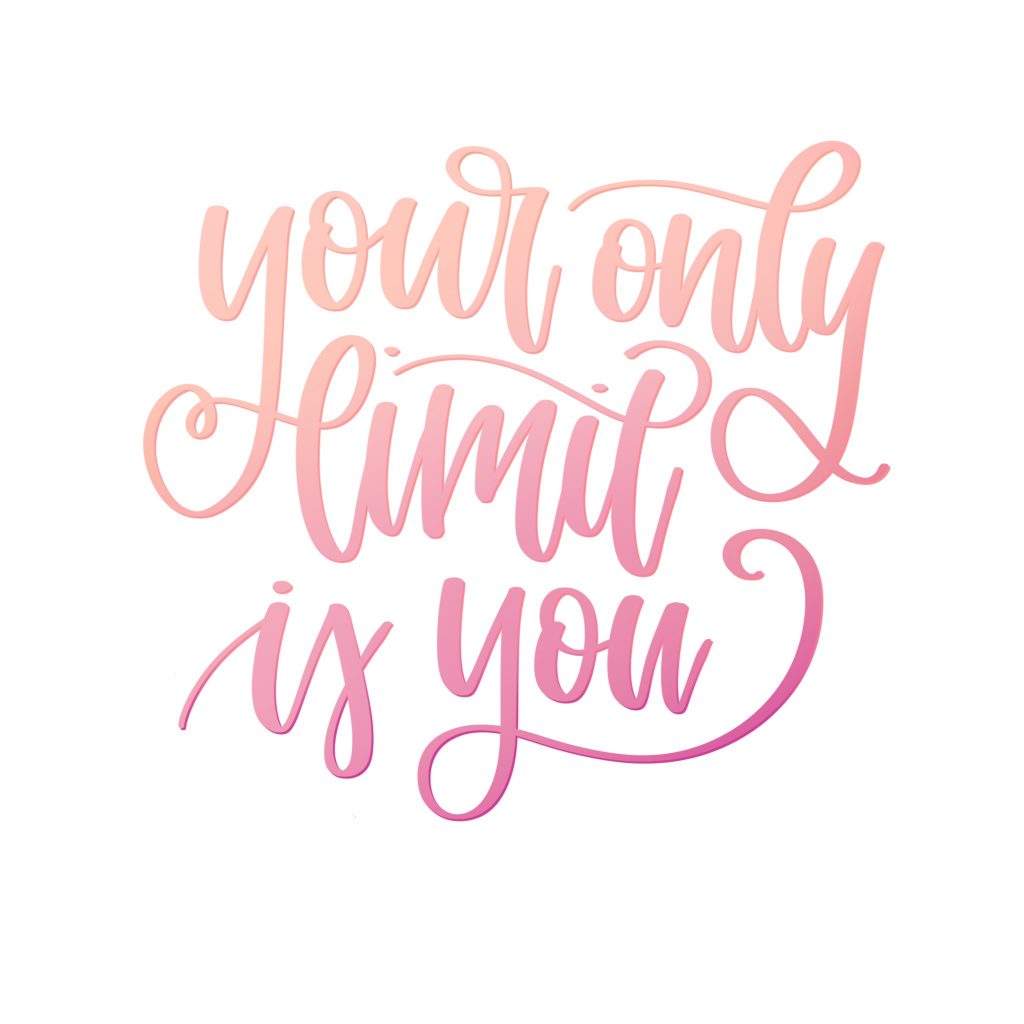
Become an Ace at iPad Lettering
If you have an interest in hand lettering and you own an iPad or tablet, there's a good chance at some point you will have tried lettering on your device. You may have written the idea off quite quickly too if you tried to letter with your finger as this can be a bit awkward to do. In the past there also weren't many places to learn how to letter digitally on your iPad or tablet.
Recently though within the lettering world iPad and tablet lettering has gained a lot more interest, and this is most likely due to the release of the iPad Pro and Apple Pencil towards the end of last year. There have been and are other tools available for drawing and writing on an iPad or tablet, but the Apple Pencil is designed in a way that works really well with hand lettering. The Apple Pencil has an incredibly sensitive pressure tip so it feels pretty similar to working with a traditional pencil or pen, and it is shaped like one too so there is no unfamiliarity. The Apple Pencil also senses when you're tilting it, so you can achieve clear definition between thick and thin lines, perfect for lettering! It is important to note that the Apple Pencil is only compatible with the iPad Pro due to the technology involved.
Professional lettering artists such as Ryan Hamrick, Dominique Falla (Typism Founder), Ruth Rowland and Ian Barnard have all been experimenting more recently with iPad lettering in some form or another, and there are many more artists that have been doing the same.
Where to Learn
If you want to become an ace at iPad lettering I highly recommend you visit Karin Newport's iPad Lettering website. Karin has created an excellent resource for beginners to learn iPad lettering through the use of digital guides, free tutorials and free brushes. The website isn't just for beginners either as it hosts a shop stocked with helpful tools for artists to return to time and time again.
Karin's free tutorials are clear, and easy to follow along with. They are usually between five and ten minutes long, and get straight into teaching you something useful, be it how to set up Procreate on your iPad or how to practice lettering on your iPad. I've shared one of my favourite tutorials by Karin just below so you can see how easy to follow they really are!
Lettering on an iPad is quite different to lettering on paper, and can take a bit of getting used to, it is a skill you will need to develop. Karin provides you with the basic skills you will need to learn, so as long as you put the practice in you will be well on your way to becoming truly skilled at iPad lettering. The previous image and the following image are both examples of Karin's iPad lettering. Her work gives you a good insight into the beautiful type of lettering that you can create, you can also view more of Karin's delightful work on Instagram.
The guides Karin offers in her shop on the iPad Lettering website are well designed. It's really easy to choose what letter you want to work on and practice, or you can easily hide the letters altogether and just work with plain guides if you want to. The guides are intended specifically for the Procreate App, so probably won't work with other software.
What to Use
Karin works primarily with the amazing Procreate App mentioned above, which you may have already heard of or come across.
I worked within the technology industry for quite a few years, and I remember the launch of the Procreate App. It was an amazing piece of software that really helped to set a high standard for design based Apps, and still continues to do so. I was an early adopter of the Procreate App as I enjoy creating digital portraits from time to time, and I was blown away by the potential the App offered users for creating art. I never foresaw how helpful it would end up being for hand lettering, as at the time I was unfamiliar with the art.
The good news is that you don't need an iPad Pro to use the Procreate App, it works on any Apple iPad capable of running iOS 9.3 or later. So as long as you have an iPad you can get started exploring Procreate right away. At present in the US the Procreate App will only set you back $5.99, and in the UK it's £4.49 to buy. Unlike a lot of other design based software there's no monthly subscription, there's just a one off payment which makes the App even more great as it's so affordable.
As mentioned above Procreate works on any iPad that is able to run iOS 9.3 or later, but if you want to get the full experience of using the Apple Pencil you'll need both the Pencil and the iPad Pro. If you feel like treating yourself or finding out a bit more about the iPad Pro and Pencil I've shared some links below, so you can find them quickly and easily on Amazon.
Alternatives to the iPad Pro and Apple Pencil
I know that not everyone is a part of the Apple ecosystem, so the following are a couple of alternatives to using the iPad Pro and Apple Pencil if you'd like to give this type of lettering a go. Lettering artist and illustrator Shauna Lynn Panczyszyn makes some really fun and creative lettering with a Microsoft Surface Pro 4 tablet, and Adobe Creative Cloud which requires a monthly subscription. Adonit have created a stylus called the Pixel which isn't quite the same as an Apple Pencil but does a great job still at offering precision. The Pixel is only compatible with Apple devices but does give you options if you have an iPad but not a Pro. I own an older Adonit stylus and I found it to be pretty intuitive. I also believe all but the Adonit Pixel stylus are compatible with Android devices, so could make good alternatives if you are an Android user. Sketchbook by Autodesk tends to be a good alternative digital arts App which is available for both Android and iPhone users, but similarly to Adobe Creative Cloud it does require a subscription to get the most out of it.